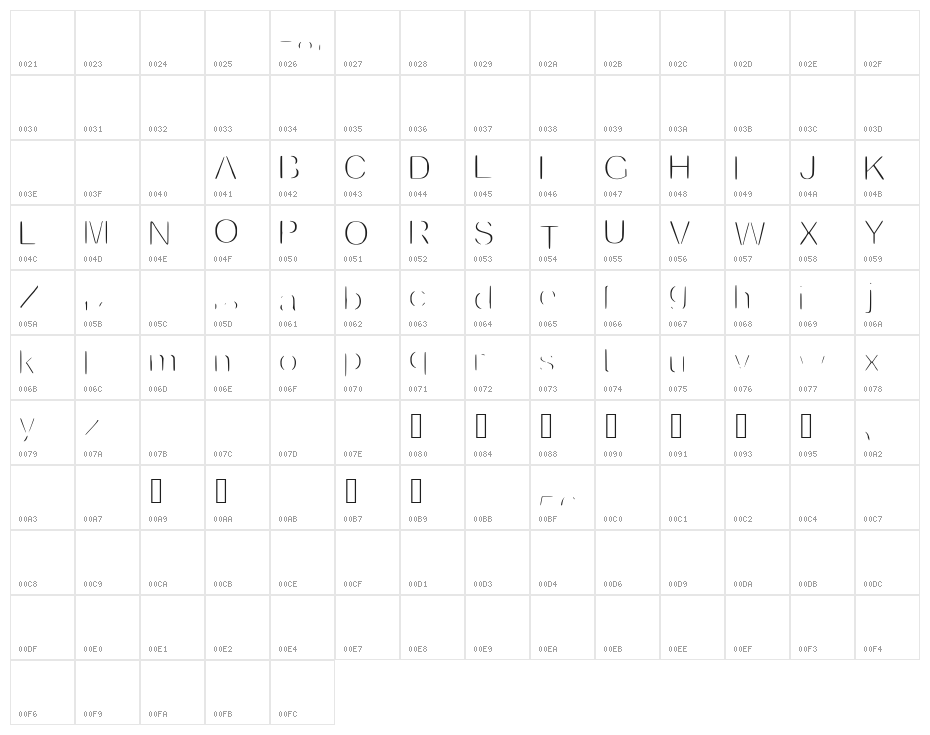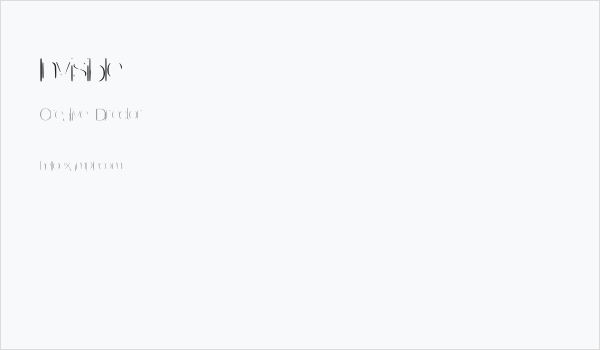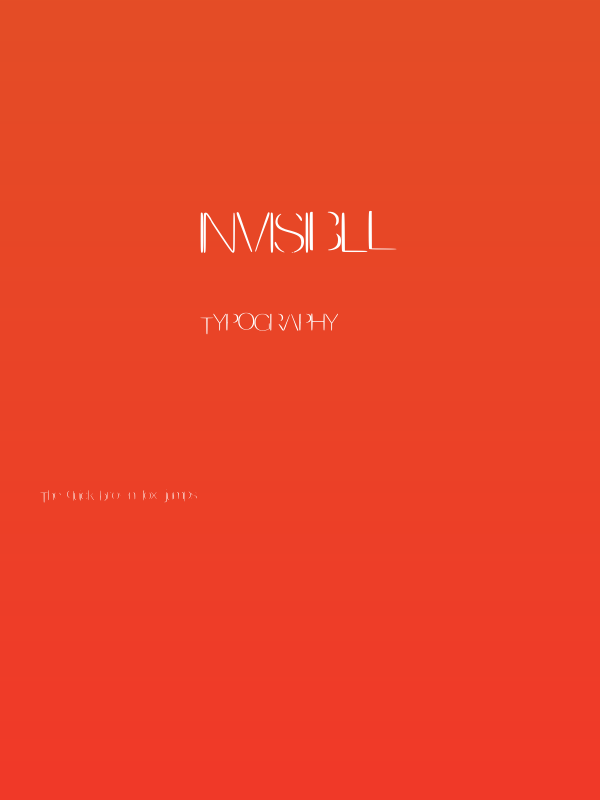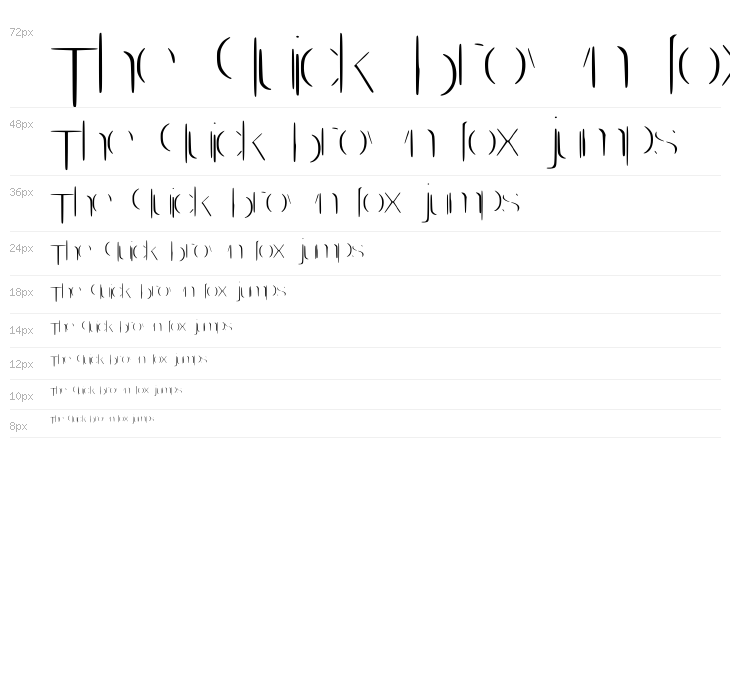
Invisible Font
✎ Distorted Eroded
| Категория | Distorted Eroded |
| Область применения | Logos, Headlines, Artistic displays |
| Рекомендуемые проекты | Ideal for artistic projects, modern art installations, avant-garde posters, and experimental graphic design. |